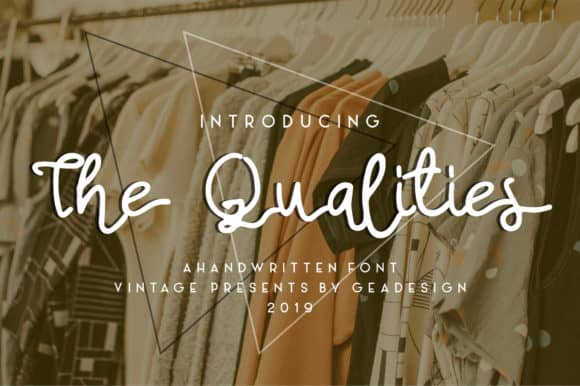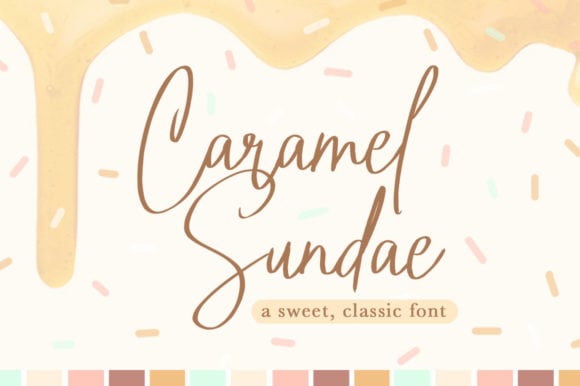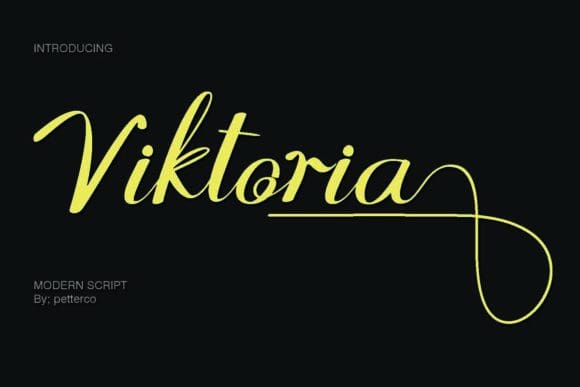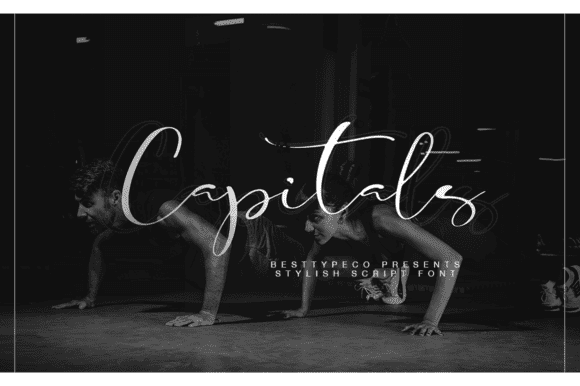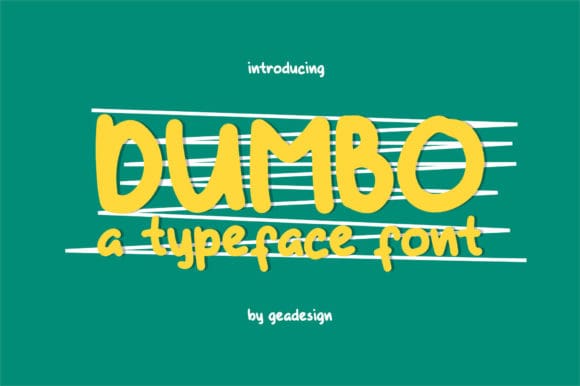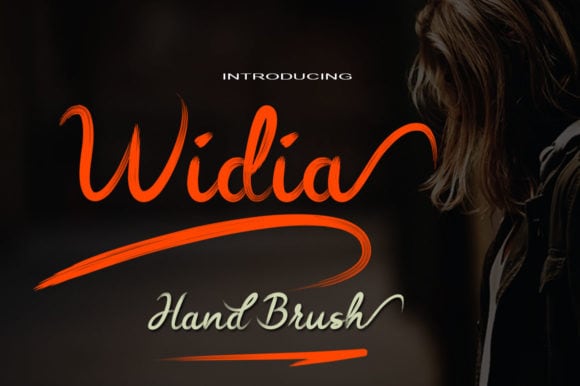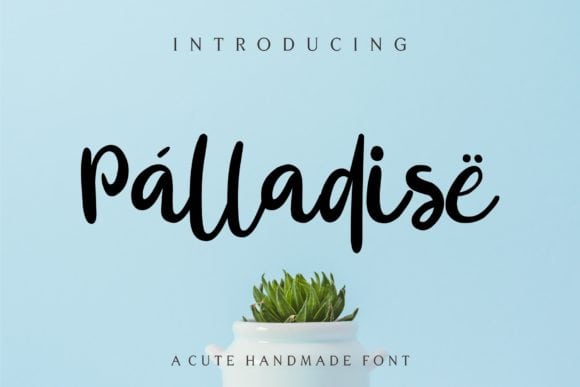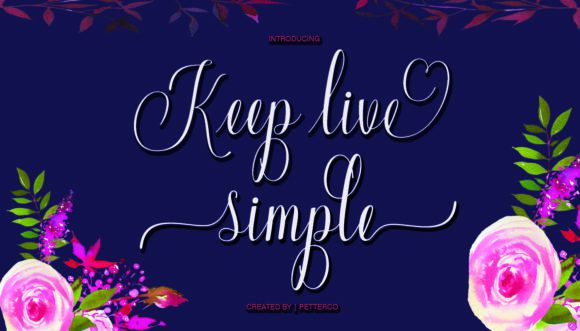
The Avocado Beat is a natural typeface. It’s perfect for adding a natural touch to your layouts, branding, logos, quotes, and much more!
The Qualities is a unique handwritten font with a distinct vintage feel. It will inspire any new design projects with its bold retro feel.
Lavandia is a soft and warm handwritten font with a natural feel. Get inspired by its unique charm.
Sweet and delicious like the drink it is inspired from, this lovely and light handwritten font will turn any design idea into a true stand out.
Victoria is a unique and elegant font with a distinctly modern touch. It will put an authentic twist on any design idea!
Capitals is a beautiful and fresh handwritten font that will effortlessly elevate new design projects with its contemporary charm.
Dumbo is a fun and adorably unique handwritten font with an undeniable charm.
Widia is a beautiful and bold brushed font with a contemporary, yet classic feel. Get inspired by its unique charm.
Palladise is an amazing and authentic handwritten font with a unique twist. It is designed to turn any design project into a lovely eye-catcher.
Keep Live Simple is a stunning and beautiful unique handwritten font with a bold twist. It will effortlessly create authentic and lovely design projects.